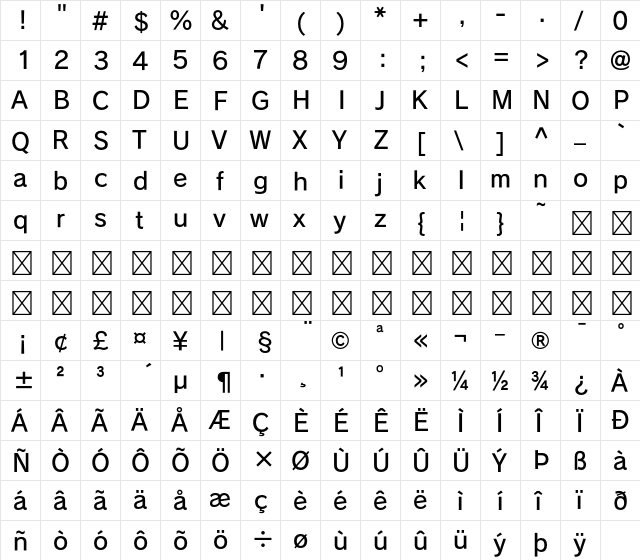
FOT-Rodin Pro DB
| Designer | Fontworks Japan, Inc. |
Design Context for FOT-Rodin Pro Typeface
FOT-Rodin Pro offers clean, dependable letterforms without strong stylistic allegiance, making it a practical choice for designers who need flexibility.